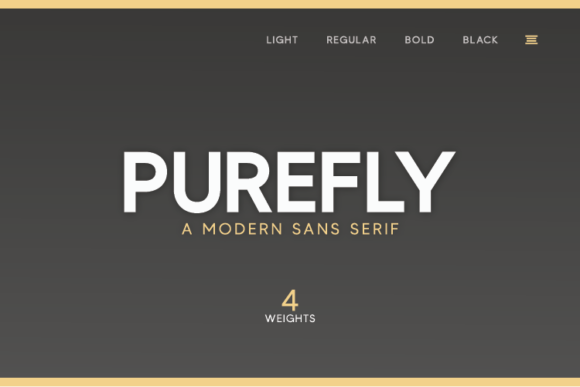
Purefly Sans Serif is the font you need to make a bold statement. With its clean lines and elegant curves, Purefly is perfect for headlines, logos, and branding. But don't just take our word for it - Purefly was created by the renowned type designer Hanna Bie, who knows a thing or two about creating fonts that make an impact.
Why settle for ordinary fonts when you can have Purefly? This high-quality font is the perfect way to add a touch of sophistication to your designs. Whether you're working on a magazine, poster, flyer, or anything else, Purefly will help you create something that truly stands out.